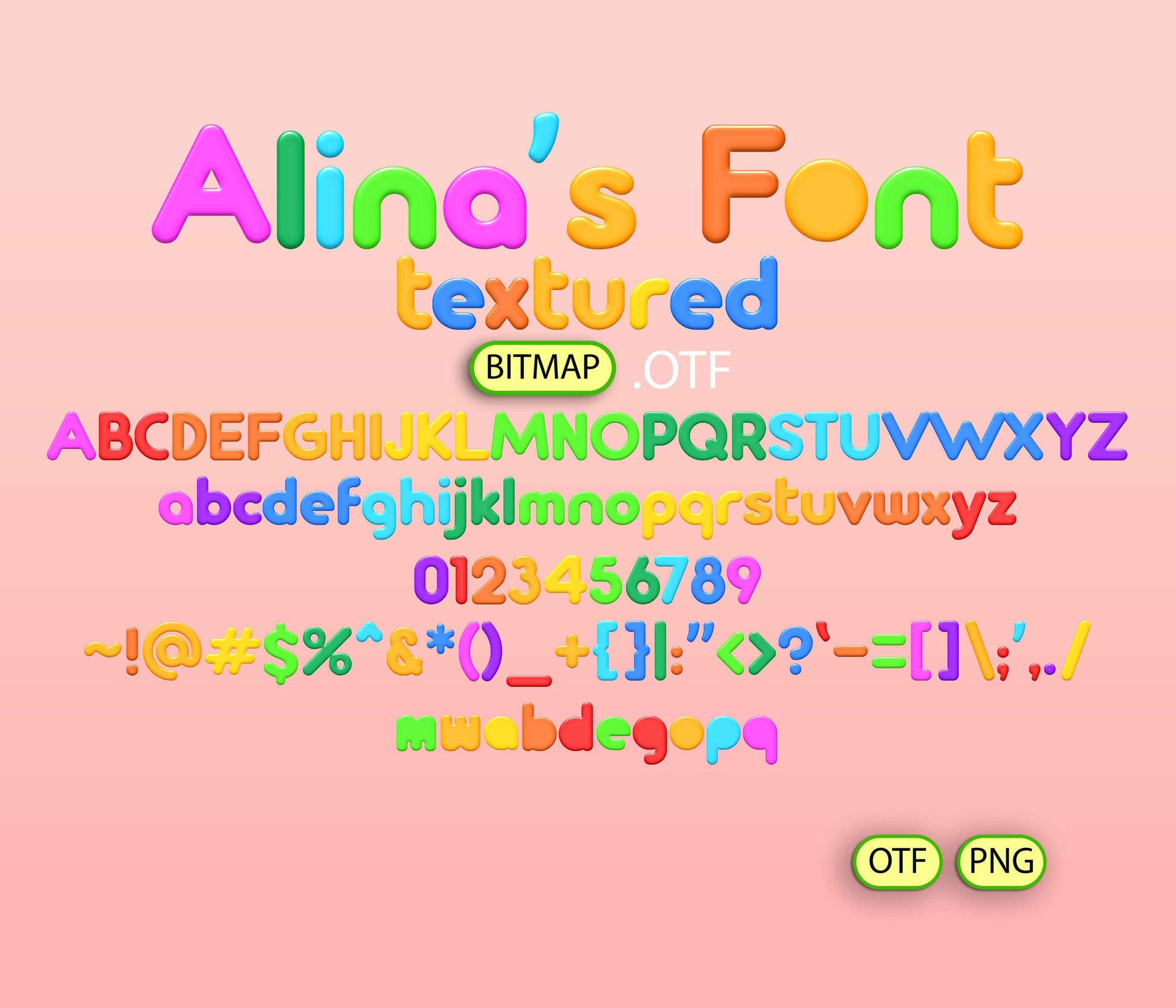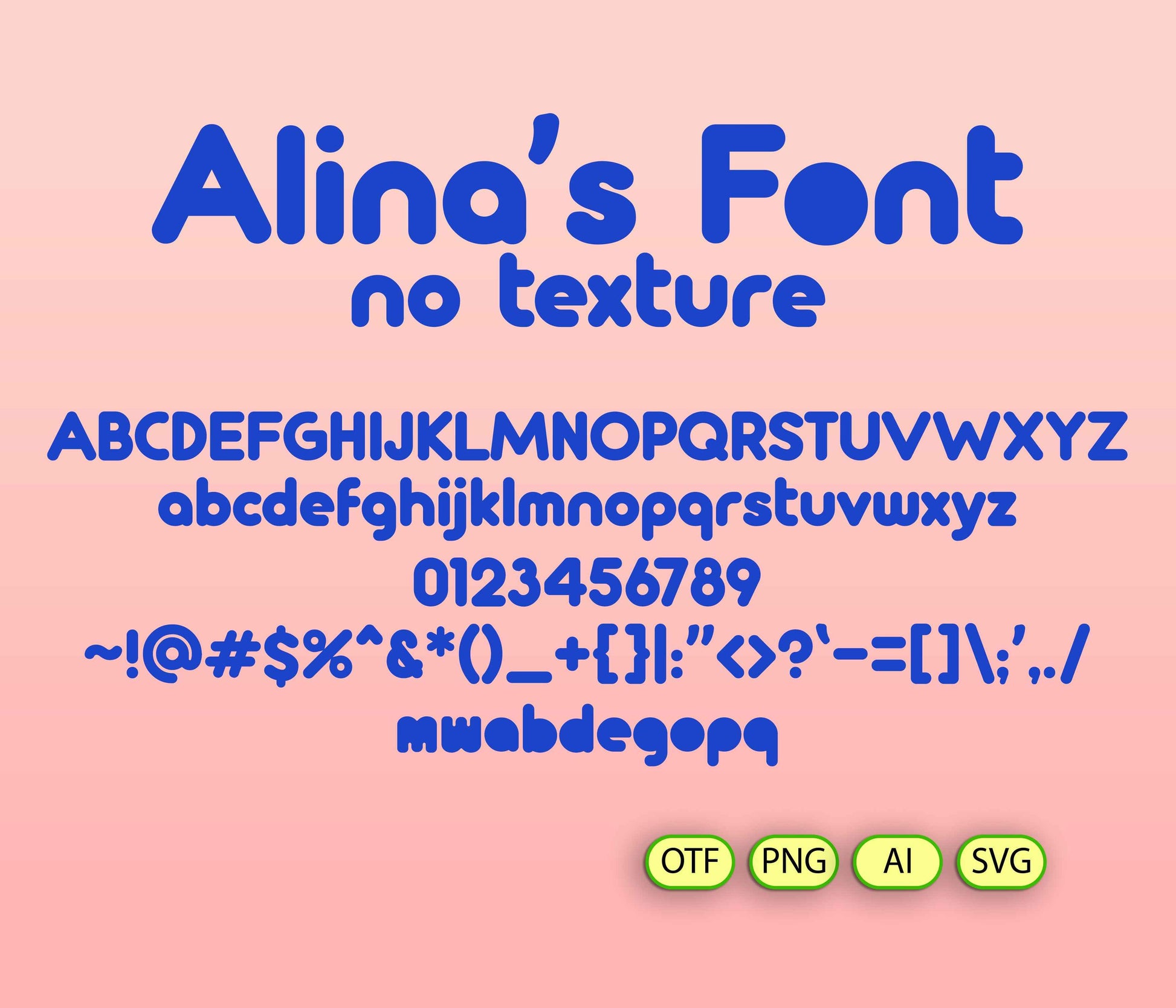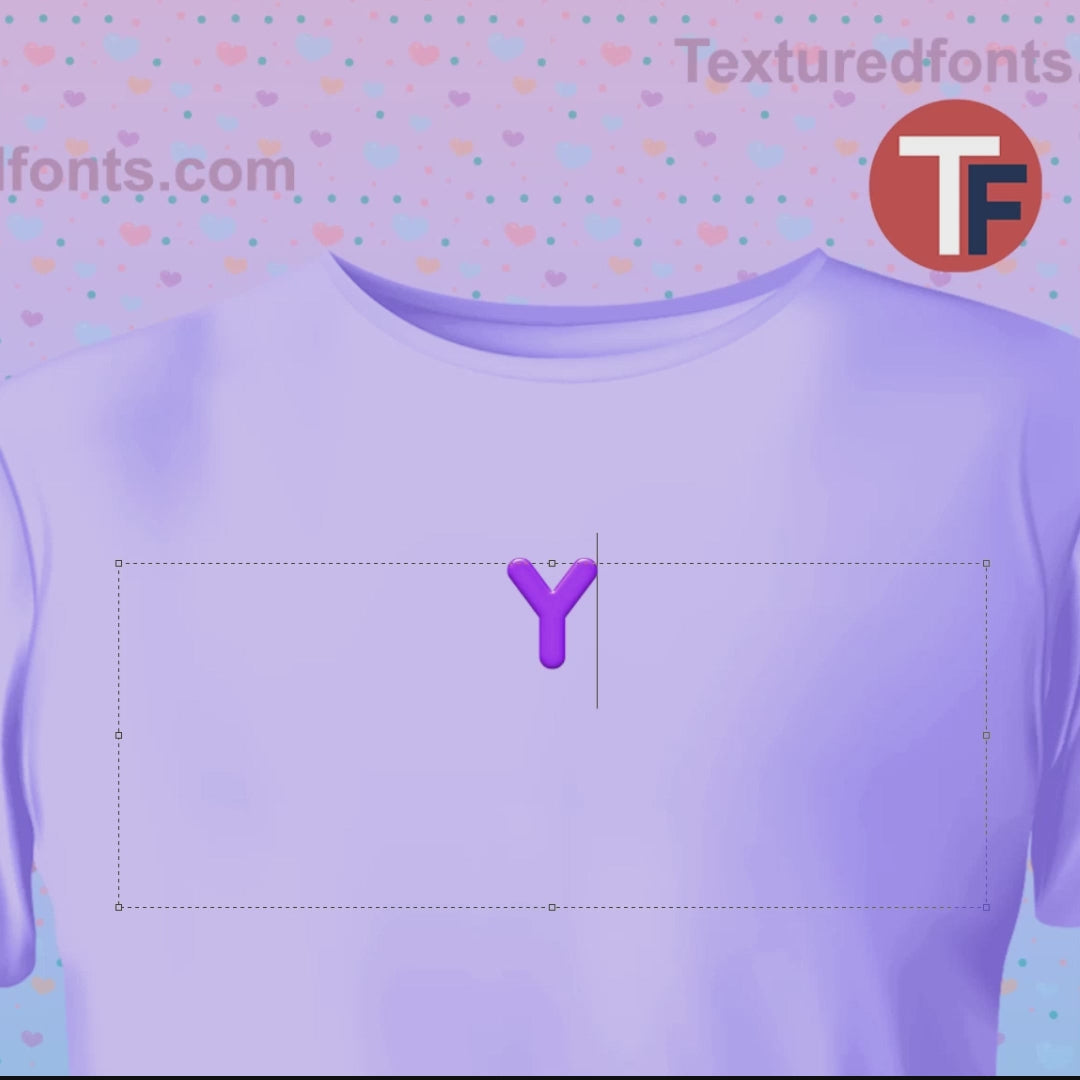
Kidshow Font Textured
Dive Into Colorful Creativity with the Kidshow Font
Bring the joy and playful spirit of a beloved children's show to your projects with our Kidshow-inspired font. Designed to capture the cheerful and educational essence of childhood entertainment, this font is perfect for fans, educators, and designers who create content for young children. With its bright and bubbly style, our font helps you craft designs that resonate with the innocence and fun of early childhood, making it ideal for everything from educational materials to personalized kids' decor.
What is the Kidshow Font?
Our Kidshow-inspired font reflects the show's approachable and engaging visual style, characterized by rounded, soft shapes that are easy on young eyes. The letters mimic the colorful and rounded characters, providing a sense of comfort and friendliness that enhances readability for early learners. The complete character set includes uppercase and lowercase letters, numbers, and special symbols, ensuring versatility for all types of educational and recreational content.
Versatile Applications
The versatility of the Kidshow font makes it a fantastic choice for a wide range of applications:
1. Educational Materials: Create engaging worksheets, classroom decorations, and learning aids.
2. Children’s Apparel: Design adorable t-shirts, hats, and bibs that capture the Kidshow charm.
3. Party Supplies: Craft custom invitations, banners, and thank you cards for children's parties.
4. Digital Content: Enhance websites, apps, and social media pages targeted at parents and children.
5. Book Publishing: Use it in children’s books to maintain a cohesive and attractive layout.
6. Personalized Gifts: Produce unique gifts like custom storybooks or name signs.
7. Nursery Decor: Decorate rooms with wall art, labels, and signage that delights and educates.
8. Video Titles: Perfect for creating eye-catching titles and credits in educational videos.